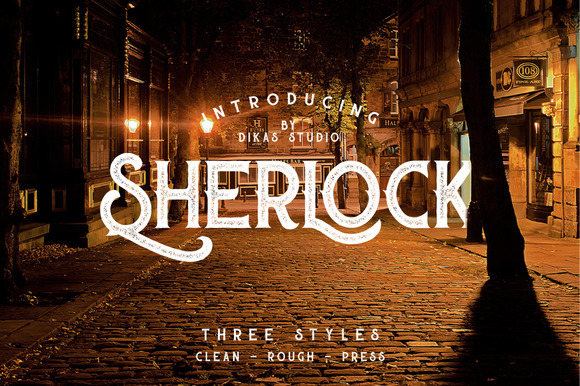
Unleash the Elegance of Vintage Typography with Sherlock Font
Embark on a captivating journey through time with Sherlock Font, a decorative masterpiece that exudes vintage charm and sophistication. This display font family, meticulously crafted by Dikas Studio, offers three distinctive variations that cater to a wide range of creative projects.
Sherlock Regular: Timeless Grace
Experience the timeless beauty of Sherlock Regular, a font that embodies the essence of classic typography. Its graceful curves and refined serifs add a touch of elegance to any design, making it ideal for creating logos, branding materials, and invitations.
Sherlock Press: Bold and Assertive
Make a statement with Sherlock Press, a bold and assertive font that commands attention. Its strong, thick lines and prominent serifs create a striking visual impact, perfect for headlines, posters, and packaging designs that demand attention.
Sherlock Rough: Edgy and Textured
Embrace the charm of imperfection with Sherlock Rough, a font that celebrates the beauty of worn and weathered surfaces. Its rough edges and distressed textures add a touch of character and authenticity to your designs, making it ideal for vintage-inspired projects, grunge aesthetics, and retro posters.
Explore Endless Creative Possibilities
With Sherlock Font, your imagination is the only limit. Whether you're a seasoned designer or just starting out, this font family provides endless opportunities to create stunning visuals. From elegant wedding invitations to eye-catching social media posts, from retro posters to modern logos, Sherlock Font is the perfect tool to bring your creative visions to life.